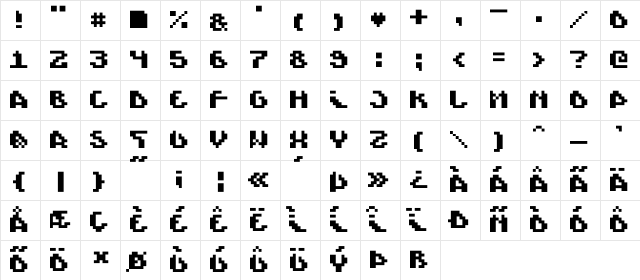
Scienide Regular Free Font
Scienide Regular
Designer: .:ck!:. [freakyfonts]
Design Context for Scienide
Scienide is a composed and adaptable typeface that performs quietly and consistently across a wide range of design contexts.